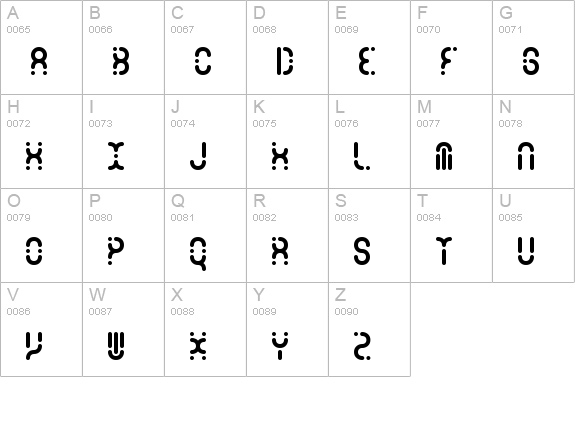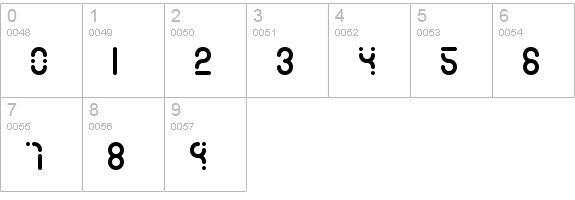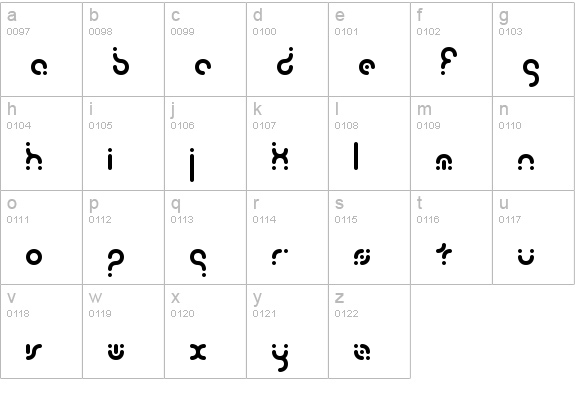
Zoetrope BRK Font Details
Zoetrope BRK font is a unique and eye-catching typeface that exudes creativity and originality. With its playful and dynamic design, this font is perfect for adding a touch of whimsy to your projects. Zoetrope BRK font is a versatile choice that can be used for a variety of purposes, from branding to graphic design to social media posts. Best of all, Zoetrope BRK font is available for free download at FontsMarket.com. Whether you're a professional designer looking to add a fresh font to your collection or a hobbyist in need of a fun and lively typeface, Zoetrope BRK font is the perfect choice. Don't miss out on this fantastic opportunity to enhance your designs with this fantastic font - download Zoetrope BRK today!